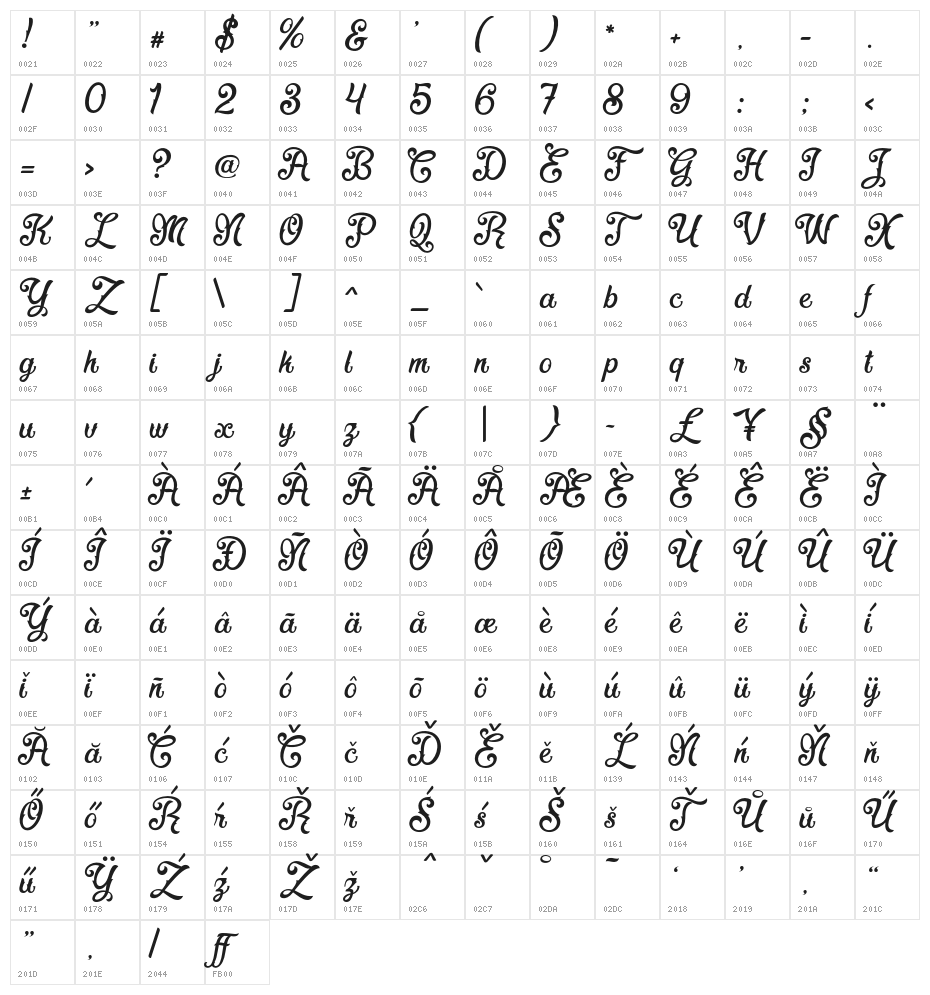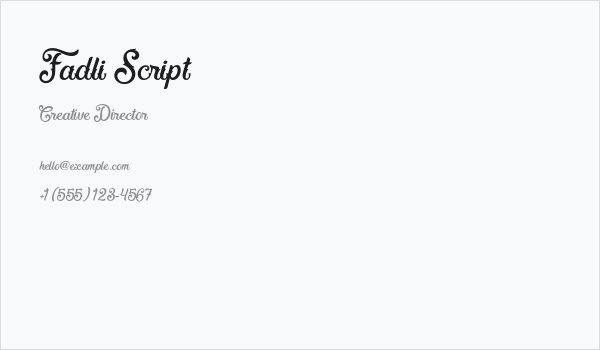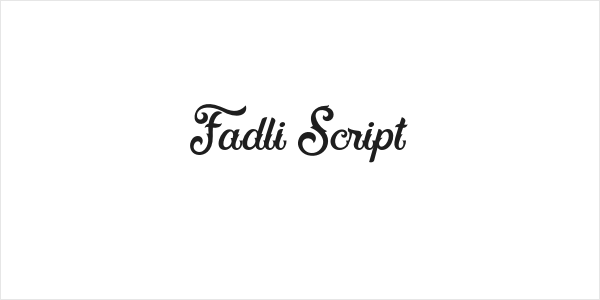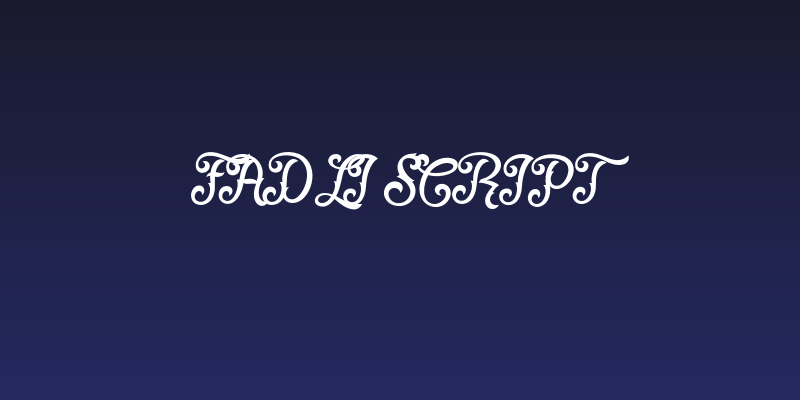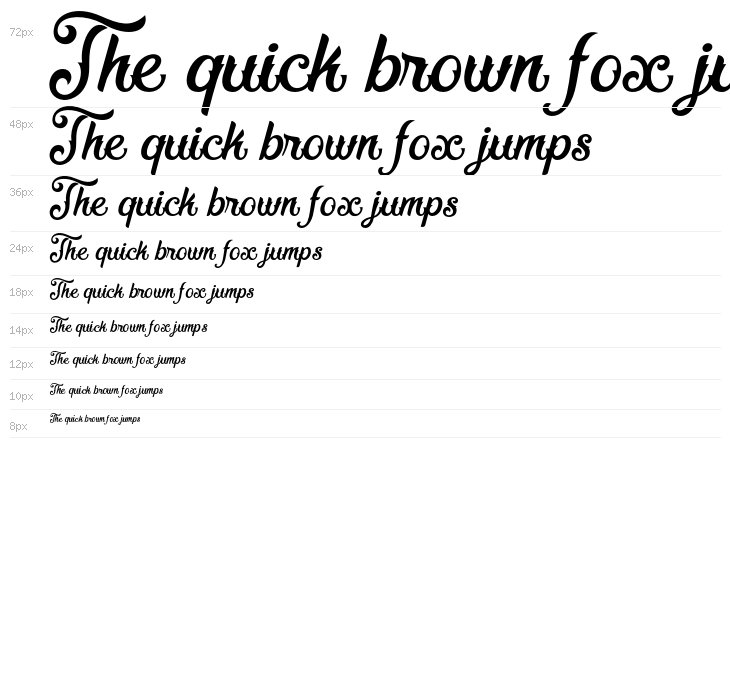
Fadli Script Font
Fadli Script Description
This font features an elegant and flowing script style, characterized by its ornate and decorative letterforms. The uppercase letters exhibit intricate loops and swirls, adding a touch of sophistication and flair. The lowercase letters maintain a consistent cursive style, ensuring readability while still offering a sense of elegance. The numerals are designed with similar embellishments, making them cohesive with the overall aesthetic. Special characters are also included, maintaining the decorative theme. This font is ideal for projects that require a touch of class and creativity.
Use CaseLogos, Invitations, Decorative Text
Proposed ProjectsIdeal for wedding invitations, greeting cards, branding, and elegant packaging designs.